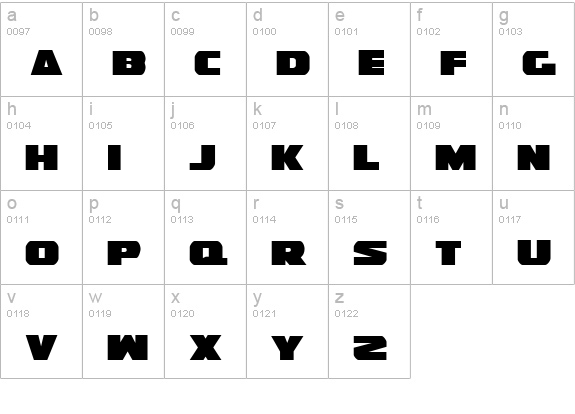
Guardian font is a modern and versatile typeface that exudes elegance and sophistication. With its clean lines and balanced proportions, Guardian is a perfect choice for a wide range of design projects, from branding to editorial design. This versatile font is suitable for both headlines and body text, making it a great option for creating cohesive and polished designs. What's even better is that Guardian font is available for free download at FontsMarket.com. You can easily access this beautiful typeface and use it in your projects without any cost. Don't miss out on this opportunity to enhance your designs with the timeless elegance of Guardian font. Download it today and see how it can elevate your design work to the next level.